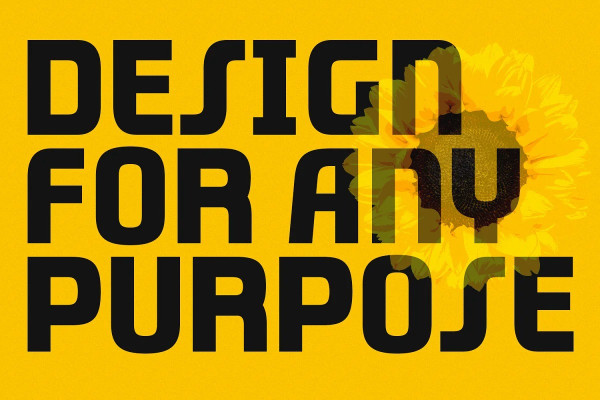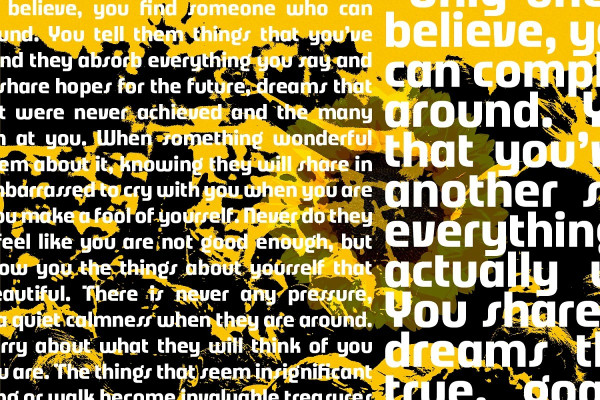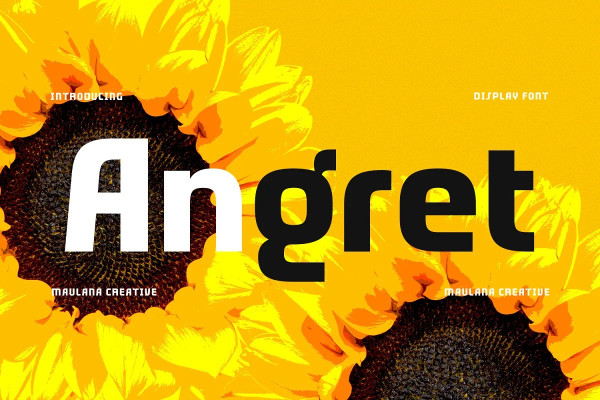
Angret Font
Angret Font is a retro vibe fun sans display font. Regular stroke, fun character with a bit of ligatures and stylistic. To give you an extra creative work. Angret font support multilingual more than 100+ language. This font is good for logo design, Social media, Movie Titles, Books Titles, a short text even a long text letter and good for your secondary text font with script or serif. Make a stunning work with Angretfont.